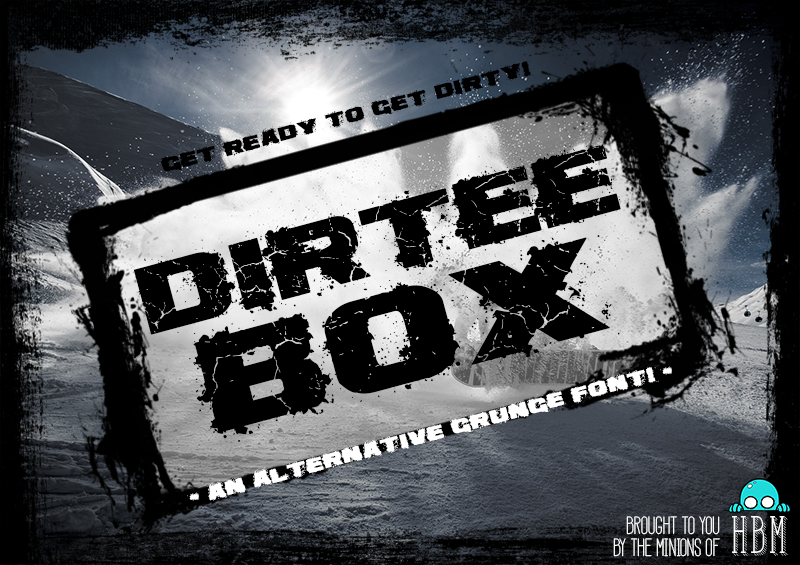
Dirtee Box was designed for those looking for a font to match their alternative lifestyle. Inspired by extreme sports, the font is perfectly suited for promo material for any alternative sports or people. Nothing's quite as dirty as HBMs Dirtee Box! If you like this font consider donating, please visit http://www.monsterswithin.com - Big Minion |